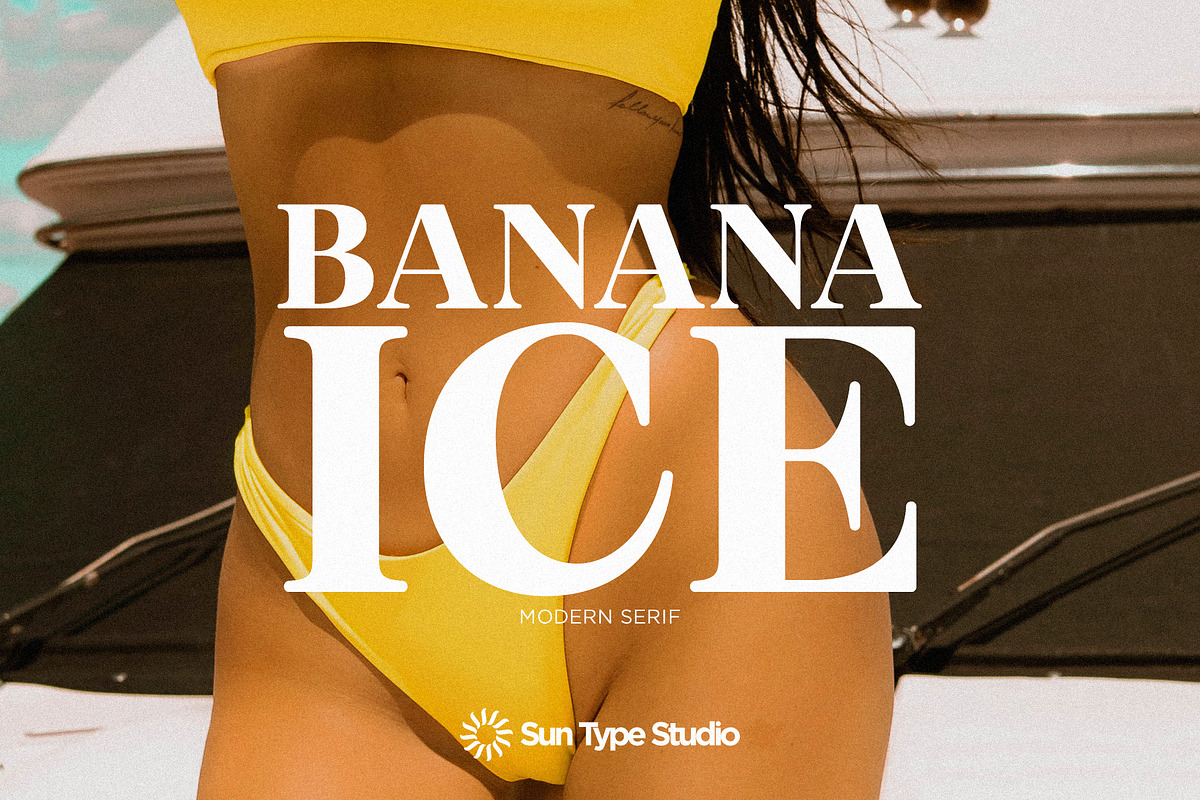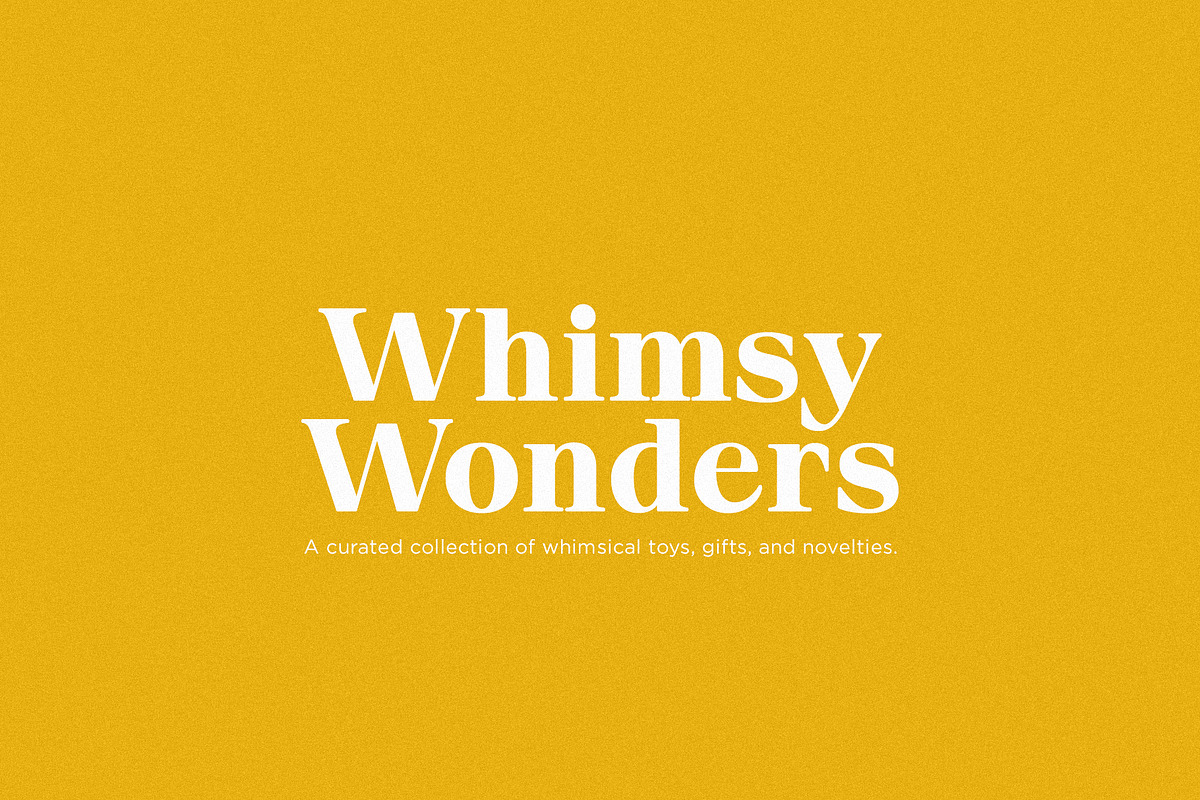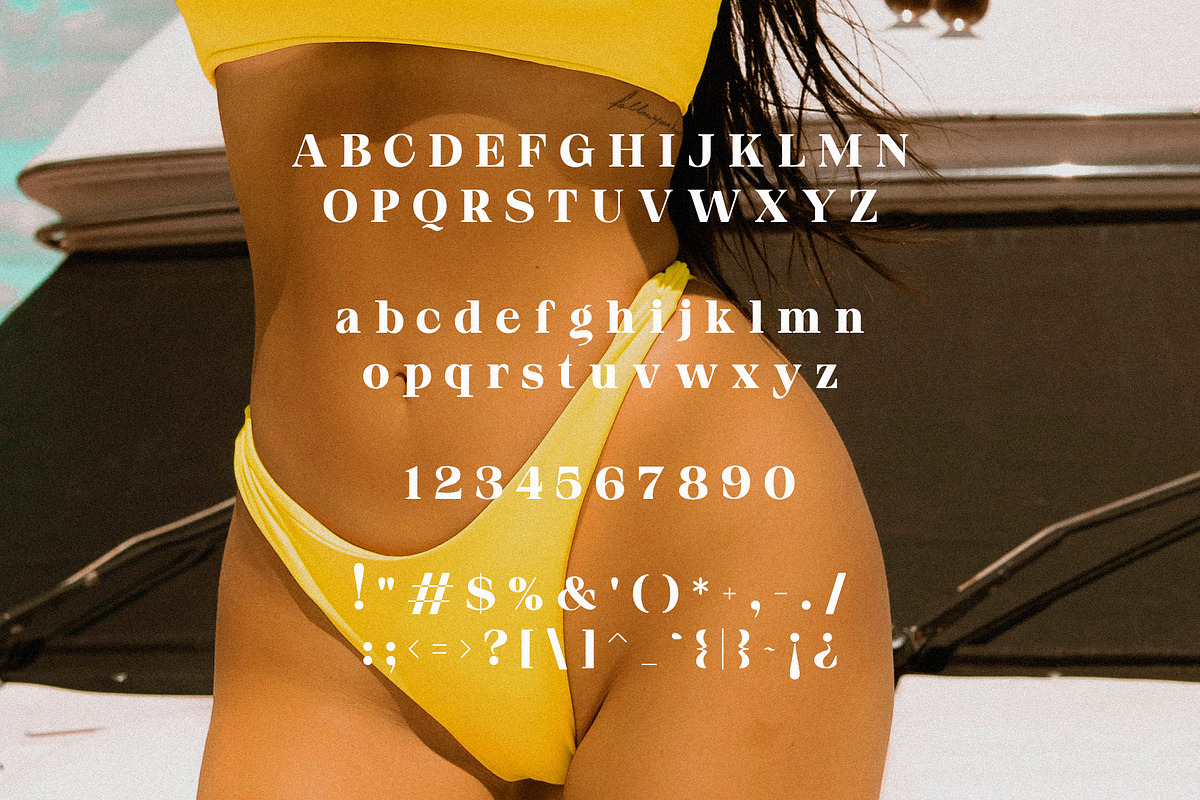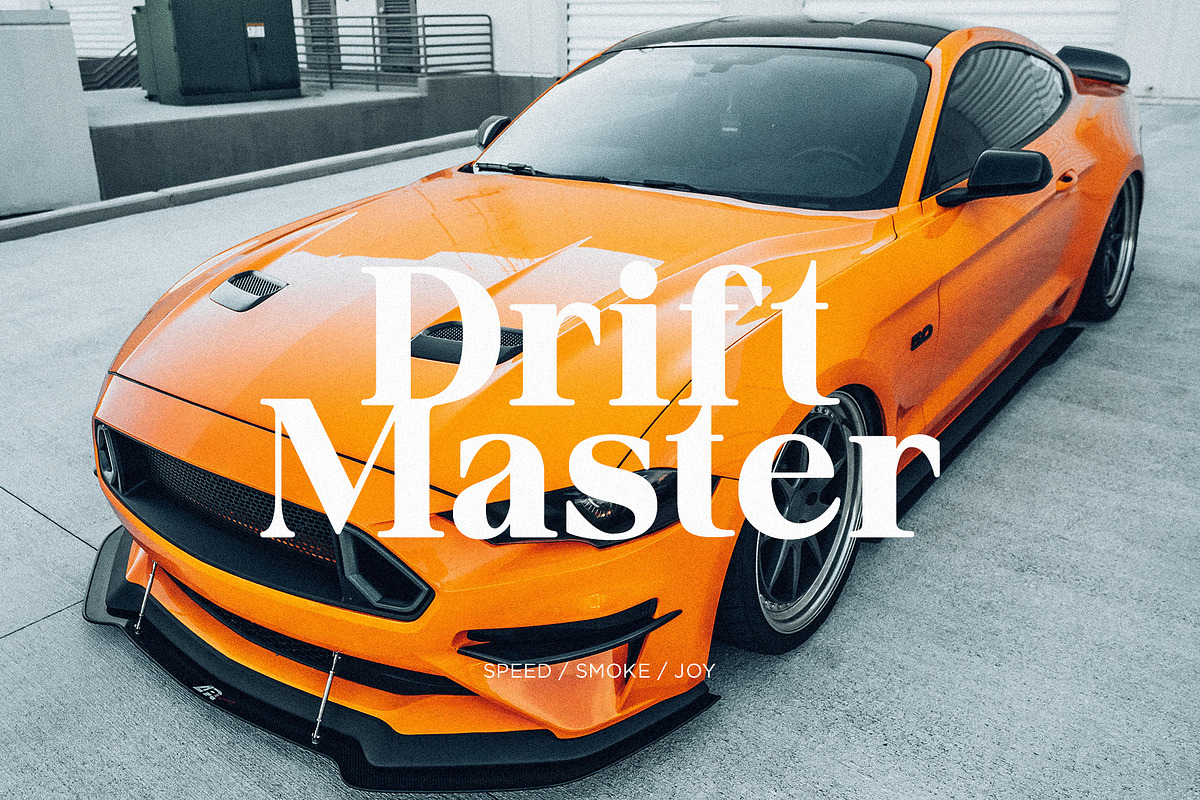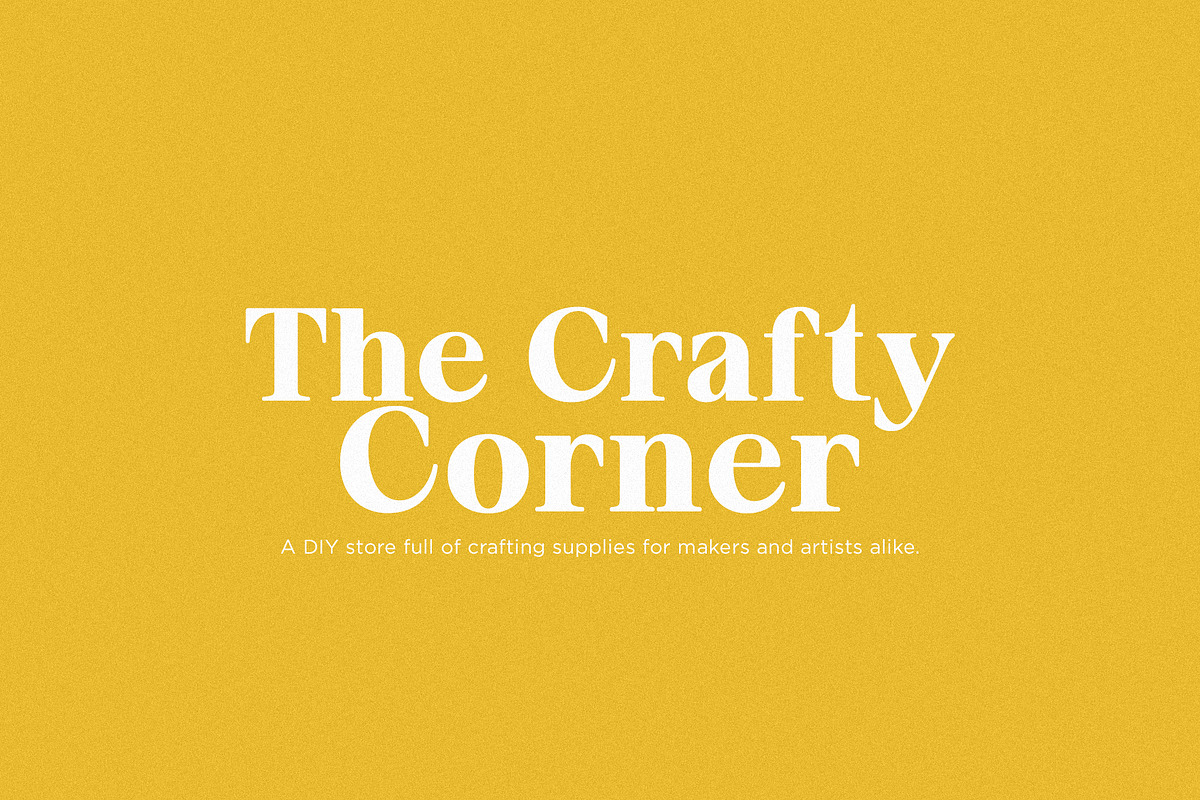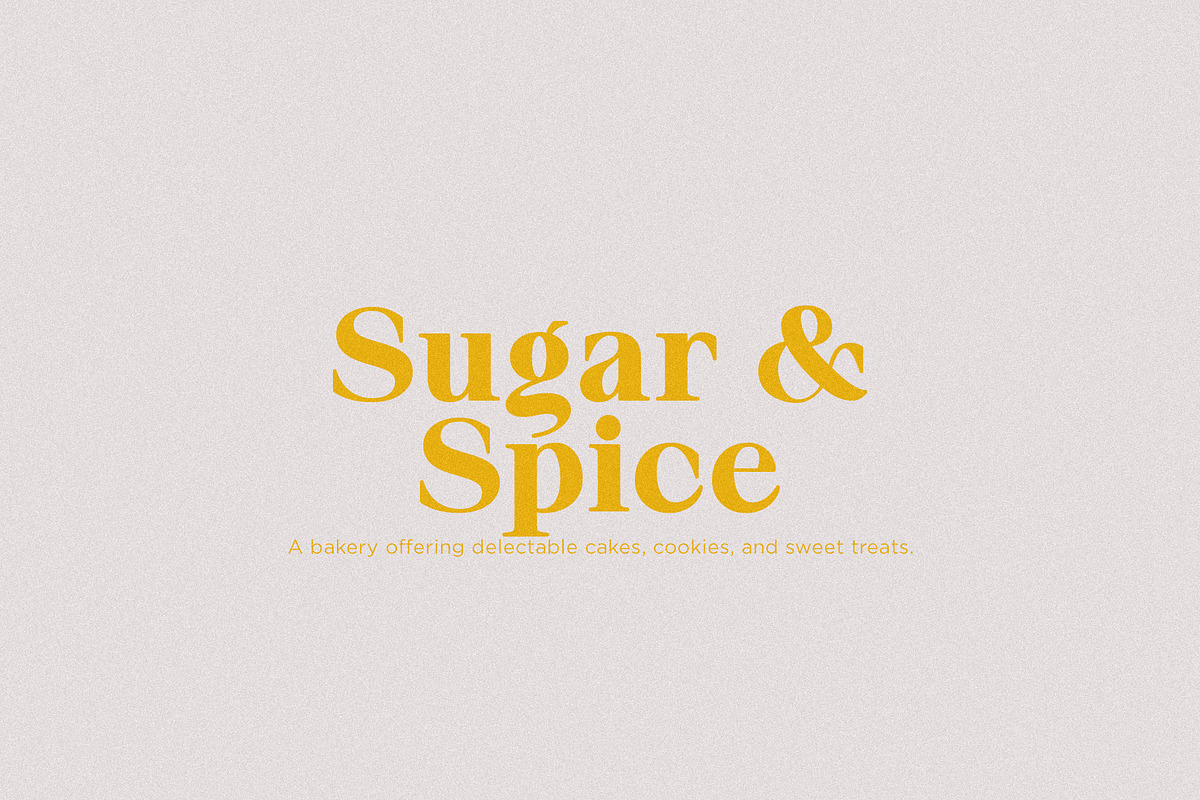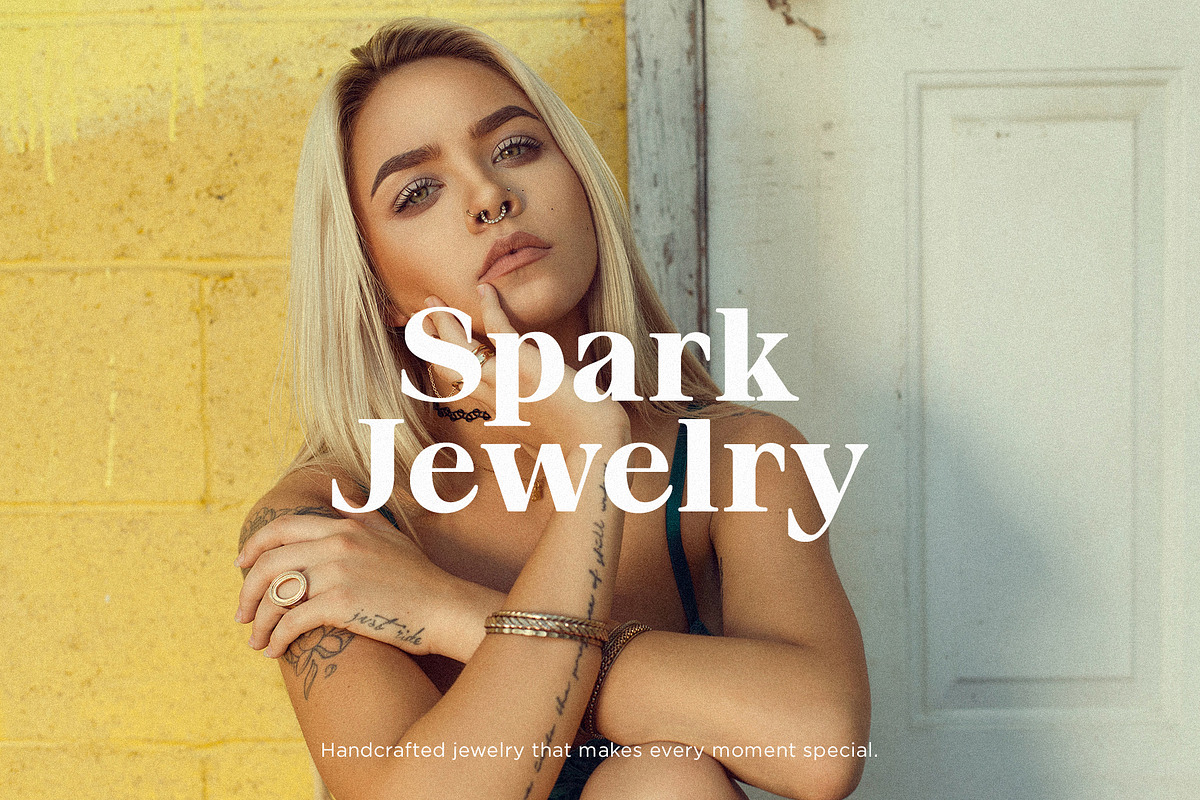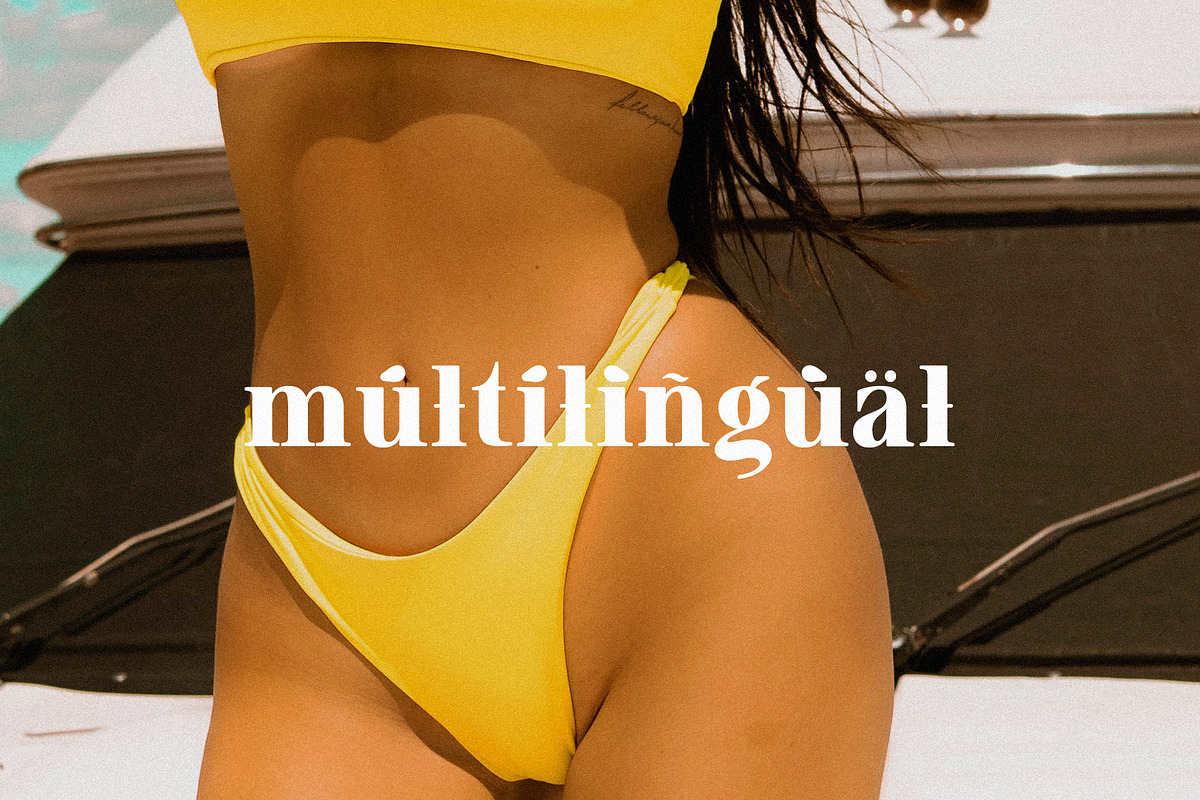
Banana Ice - Modern Serif
Banana Ice - Modern Serif is a striking typeface that blends contemporary design with timeless elegance. Its clean, sharp serifs and smooth curves create a bold yet approachable look, making it perfect for a variety of creative projects. With a distinct personality and an emphasis on readability, Banana Ice is ideal for branding, editorial designs, and digital interfaces where a modern touch is essential. The font's sleek, stylish form brings sophistication without being overly traditional, making it the perfect choice for projects that demand both innovation and class.